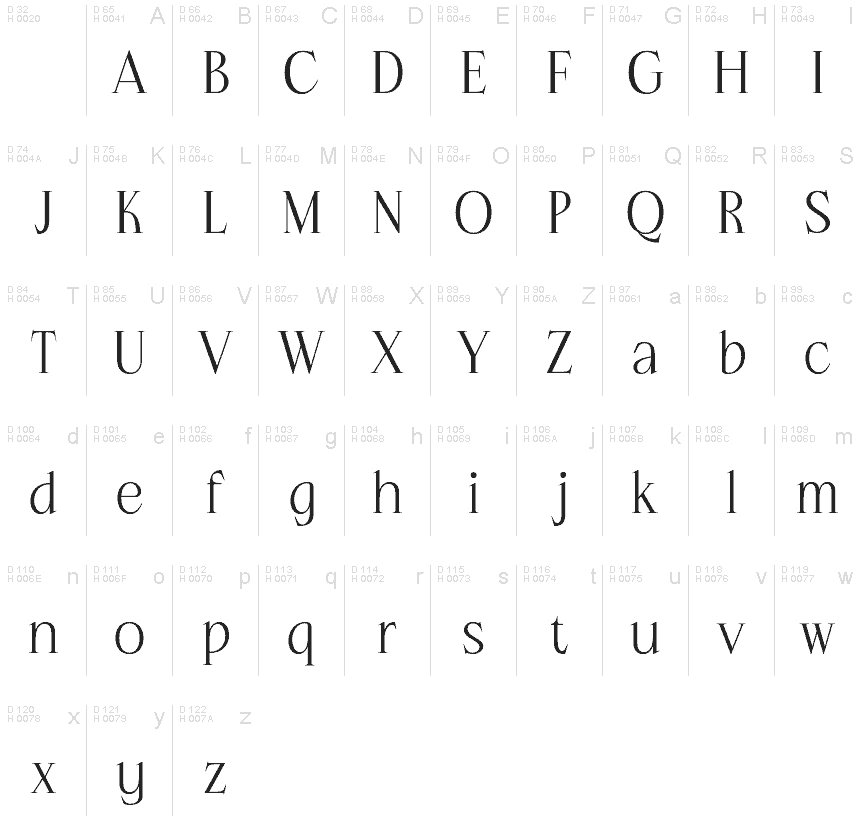
CS Canela Demo Regular
CS Canela font is a free serif font designed by Craft Supply Co. Each stroke in this minimalist typeface is perfectly engineered with special attention to every little detail. Every beautifully curved line draws immediate attention to the letters which give off an elegant appearance that uses thin and delicate strokes.
Use this typeface in magazines, books, or newspapers as well as for blogs and websites. It works on branding designs, logotypes, advertising campaigns, posters, brochures, and packaging cartons. Invitations for weddings or birthdays will also benefit greatly if written using CS Canela.